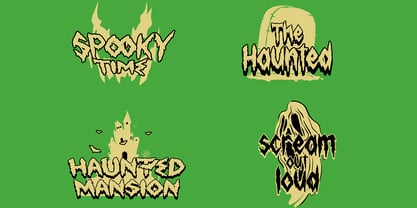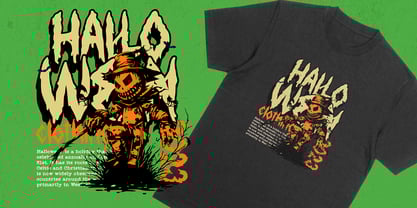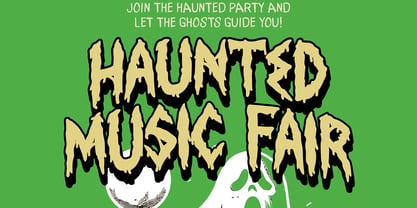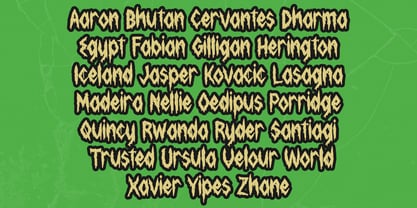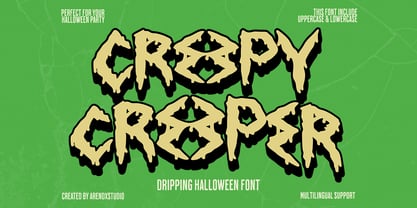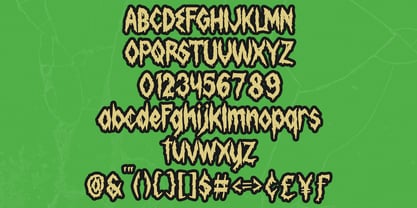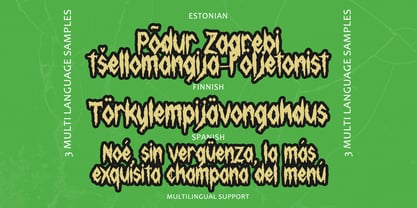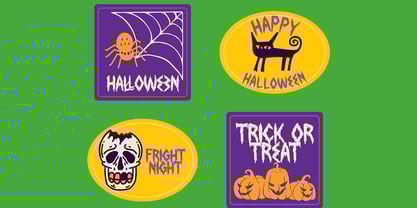
Creepy Creeper
by Arendxstudio
The Creepy Creeper Font Family was designed by Asep Rendi and published by Arendxstudio. Creepy Creeper contains 1 styles. More about this family
Title: Creepy Creeper – Dripping Halloween Font
Description:
Creepy Creeper is a dripping Halloween font designed to bring a spooky, eerie, and playful vibe to your creative projects. With bold letterforms and unique dripping details, this typeface is perfect for posters, party invitations, merchandise, social media graphics, and any design that needs a hauntingly fun twist. Its uppercase and lowercase characters provide versatility, while multilingual support makes it suitable for global use. Creepy Creeper captures the essence of Halloween with a bold personality that’s perfect for both creepy and humorous themes, making your designs unforgettable during the spooky season.
Designers: Asep Rendi
Foundry: Arendxstudio